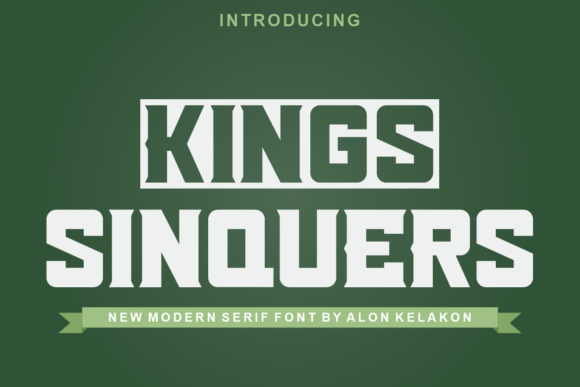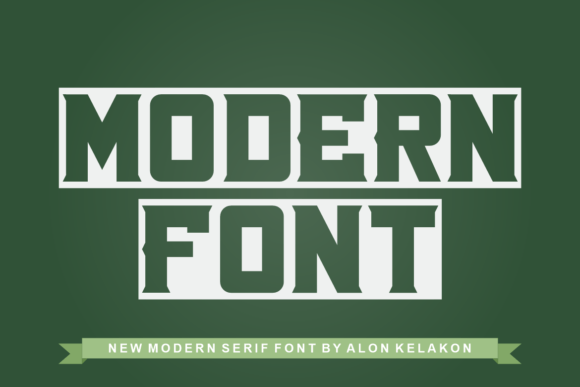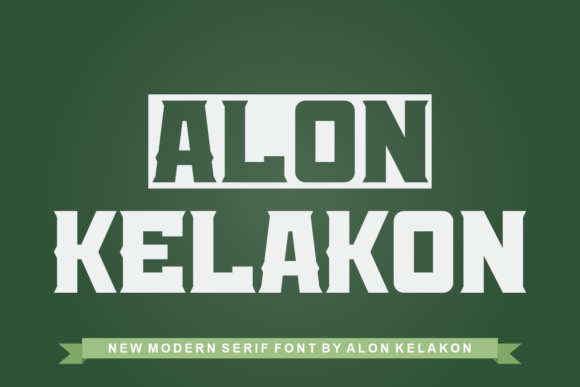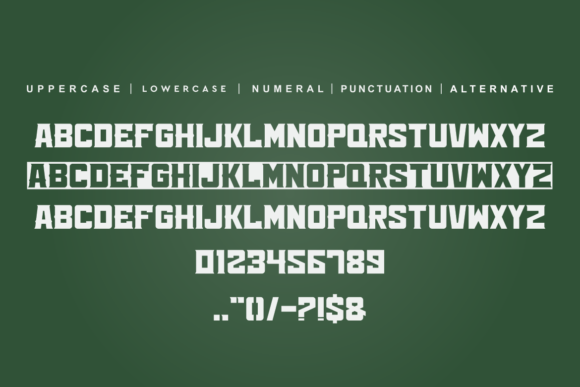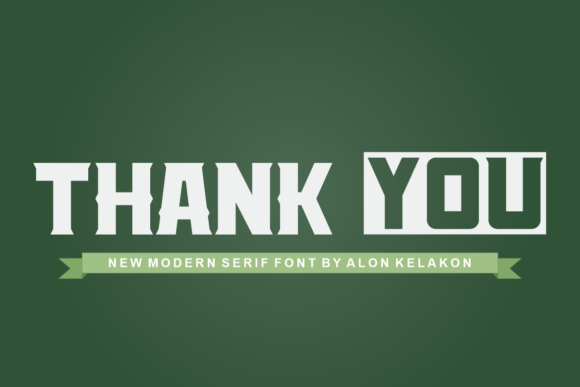
Kings Sinquers
Kings Sinquers: A Unique Slab Serif Font
Kings Sinquers is a unique slab serif font that’s ready to use for many different design projects. This PUA-encoded typeface offers easy access to all glyphs and swashes, making it perfect for various applications from labeling and clothing to movie scenes and logos.
Key Features of Kings Sinquers
• Unique Design: Offers distinctive letterforms.
• PUA Encoded: Provides easy access to all glyphs and swashes.
• Versatile Style: Works well across many different uses.
• Ready to Use: Perfect for immediate application in projects.
Best Uses for Kings Sinquers
Thanks to its unique characteristics, Kings Sinquers works especially well for:
• Try it for headlines or short text to show off its unique style.
To sum up, Kings Sinquers is an excellent choice for designers seeking a unique slab serif font that can work across many different projects. Its PUA encoding makes it especially accessible and easy to use. Whether you’re designing clothing, creating movie titles, or crafting logos, Kings Sinquers offers the perfect mix of uniqueness and flexibility.
Furthermore, Kings Sinquers’s distinctive design allows it to shine in many different settings. For instance, from product labels to gig posters, this font can lift your projects with its special style. Also, its unique yet readable look works well in designs that aim to grab attention while staying clear and legible.
In conclusion, Kings Sinquers truly stands out in the world of slab serif typography. Its ability to work well across so many different uses shows how flexible it can be. Therefore, for those wanting to add a unique touch to their work, Kings Sinquers can enhance any design with its distinctive style. Ultimately, it’s perfect for designers aiming to make a strong, memorable impact across many different kinds of creative projects.